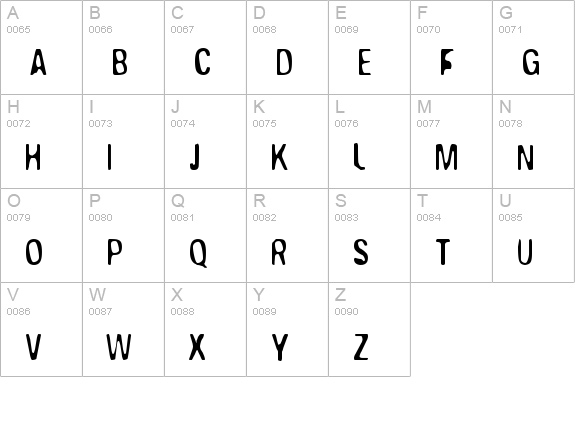
Broken Wing Font Details
Introducing Broken Wing font, a captivating typeface that exudes elegance and charm. With its unique and artistic design, this font is perfect for adding a touch of sophistication to your projects. The Broken Wing font features broken and irregular lines that give it a distinct and eye-catching appearance. What's even better is that Broken Wing font is available for free download at FontsMarket.com. Now you can easily enhance your designs with this stunning font without any cost. Whether you're working on a poster, logo, or any other creative project, Broken Wing font is sure to make a lasting impression. Don't miss out on this opportunity to elevate your designs with the beautiful Broken Wing font. Download it for free today at FontsMarket.com and let your creativity soar!